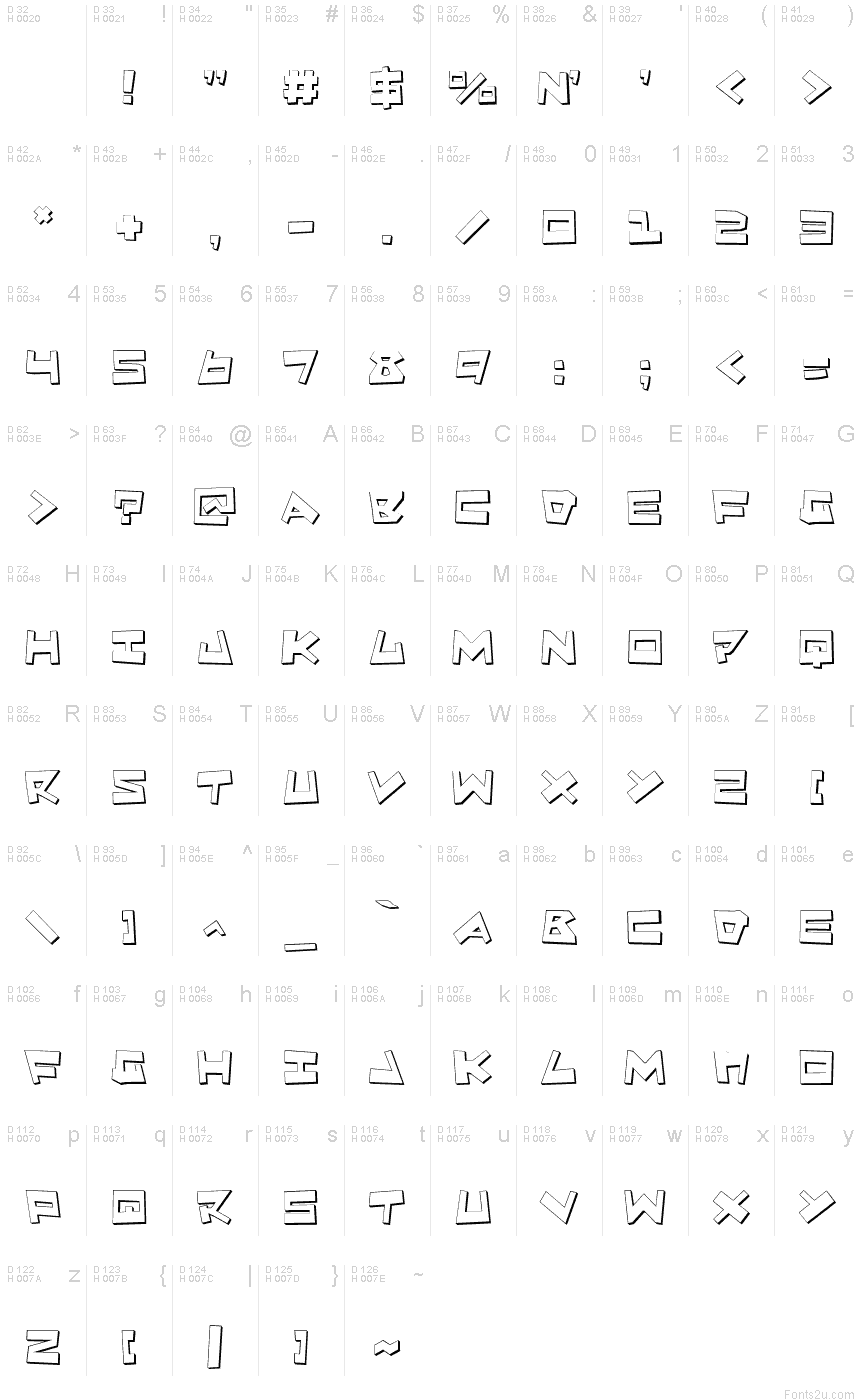
Quake & Shake 3D
Quake and Shake 3D by Iconian Fonts is a free comic display font with the loose, jolted energy of hand-cut title lettering. The caps lean, bump, and wobble against blocky 3D edges, so the alphabet feels slightly off-balance in a fun way rather than neat or geometric.
That makes this free font a natural pick for arcade flyers, kids' event posters, comic-style cover lines, Halloween party titles, and YouTube thumbnail headlines. Use it where short words need a playful shove - the chunky letters and crooked depth give title cards, monograms, and logo-style badges a cartoon tremor that feels loud without turning slick.